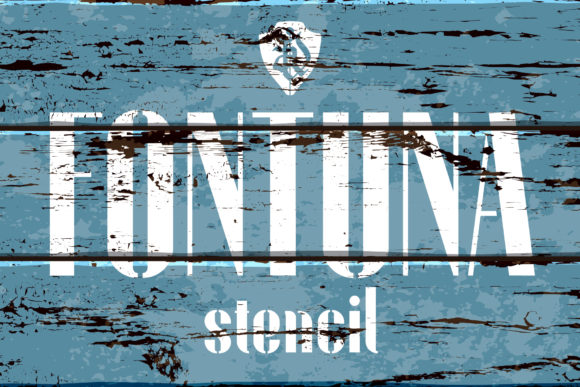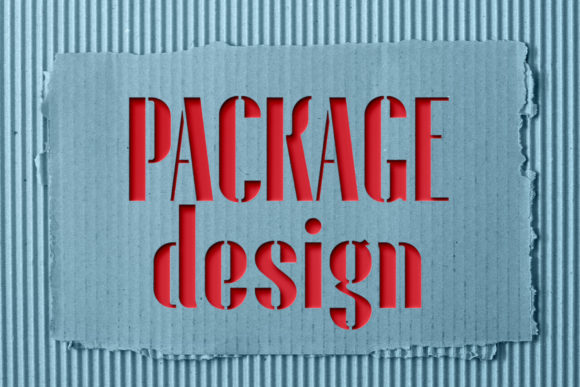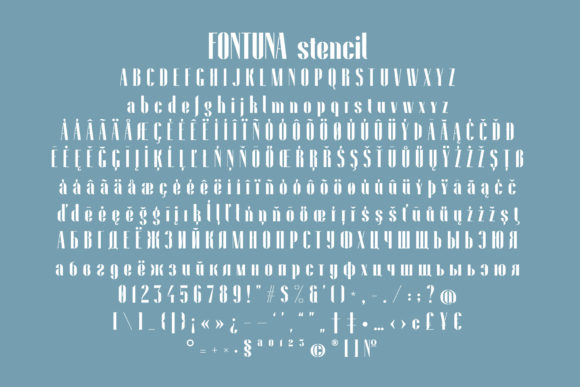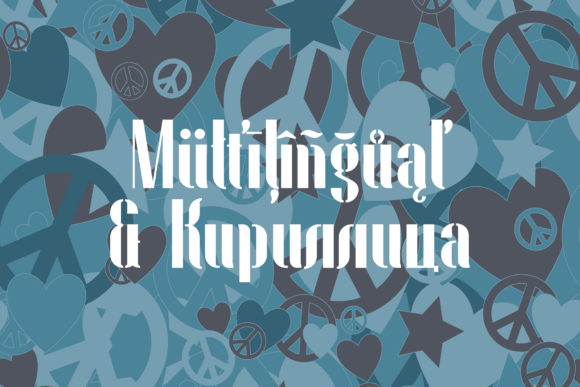
Fontuna Stencil Font
About the Fontuna Stencil Font
Experience the unique personality of Fontuna Stencil Font, a font designed for impact. Fontuna Stencil is an elegant and condensed sans serif font with a modern feel. Get inspired by its fashionable style.
Its condensed nature and clean lines make Fontuna Stencil ideal for headlines, short impactful statements, and branding elements where strong visual presence is key. It works exceptionally well in logos, posters, and packaging design, particularly for products aiming for a sophisticated and modern aesthetic. However, its condensed design makes it unsuitable for extended body text or UI elements requiring high readability.
Fontuna Stencil’s elegant yet bold personality pairs well with a variety of complementary fonts. For a balanced contrast, consider pairing it with a classic serif like Garamond for body text, or a neutral sans-serif such as Lato for supporting text. To create a more modern and edgy look, a geometric sans-serif like Futura would be a strong pairing.
The font projects a confident and modern feel, lending itself to brands focused on style, innovation, and luxury. Avoid using it in contexts requiring a friendly or approachable feel; its inherent boldness might clash with those styles.
Fontuna Stencil Font Usage Examples
Fontuna Stencil Font Example